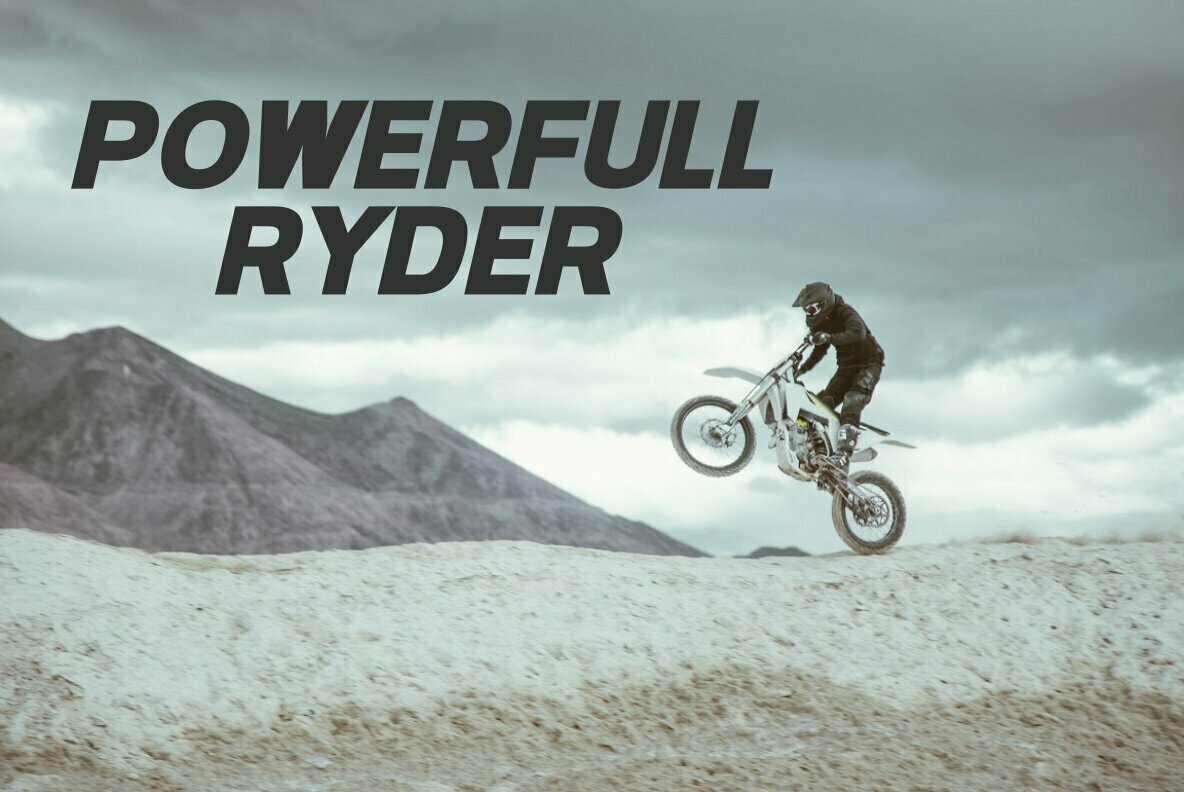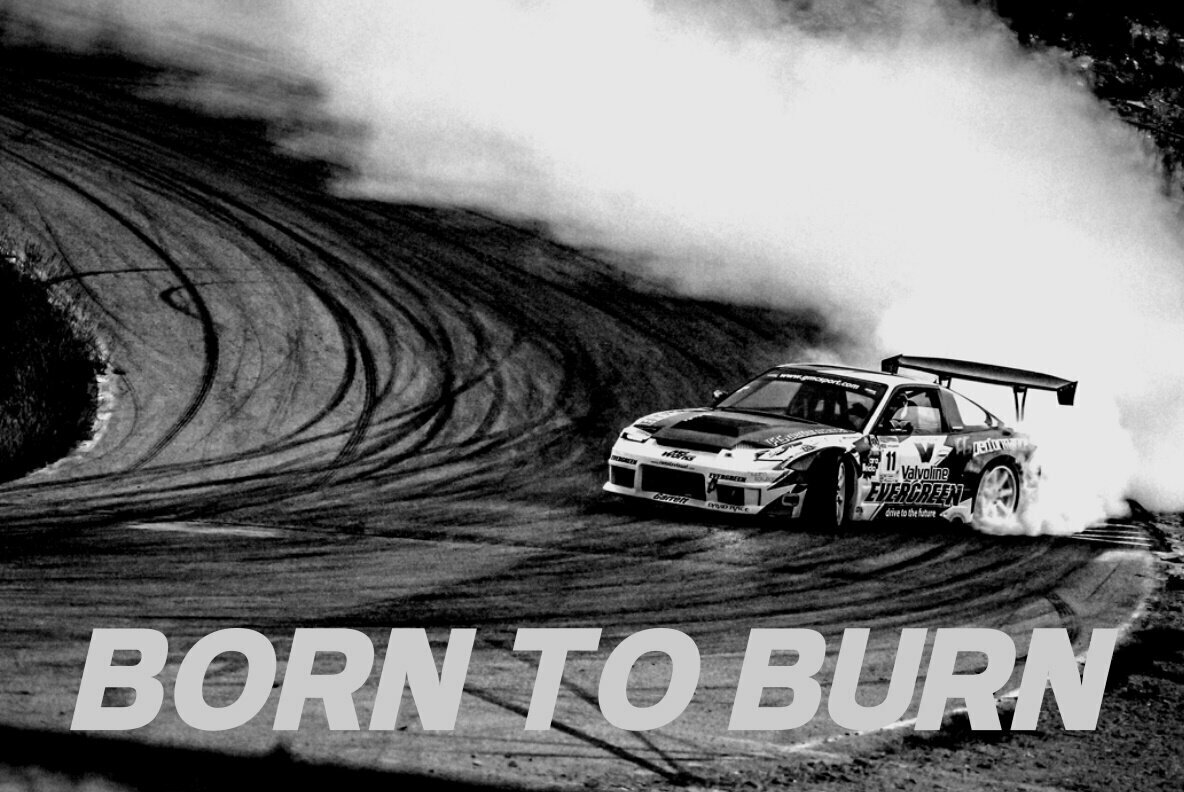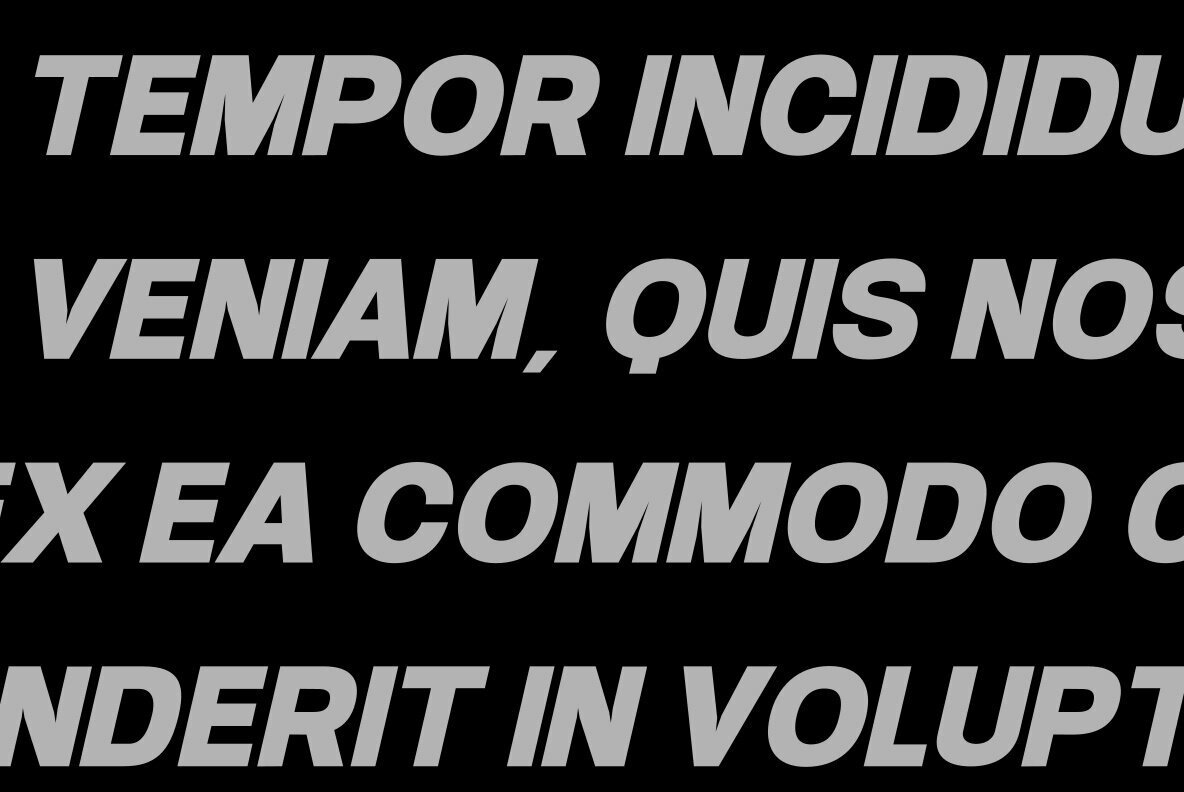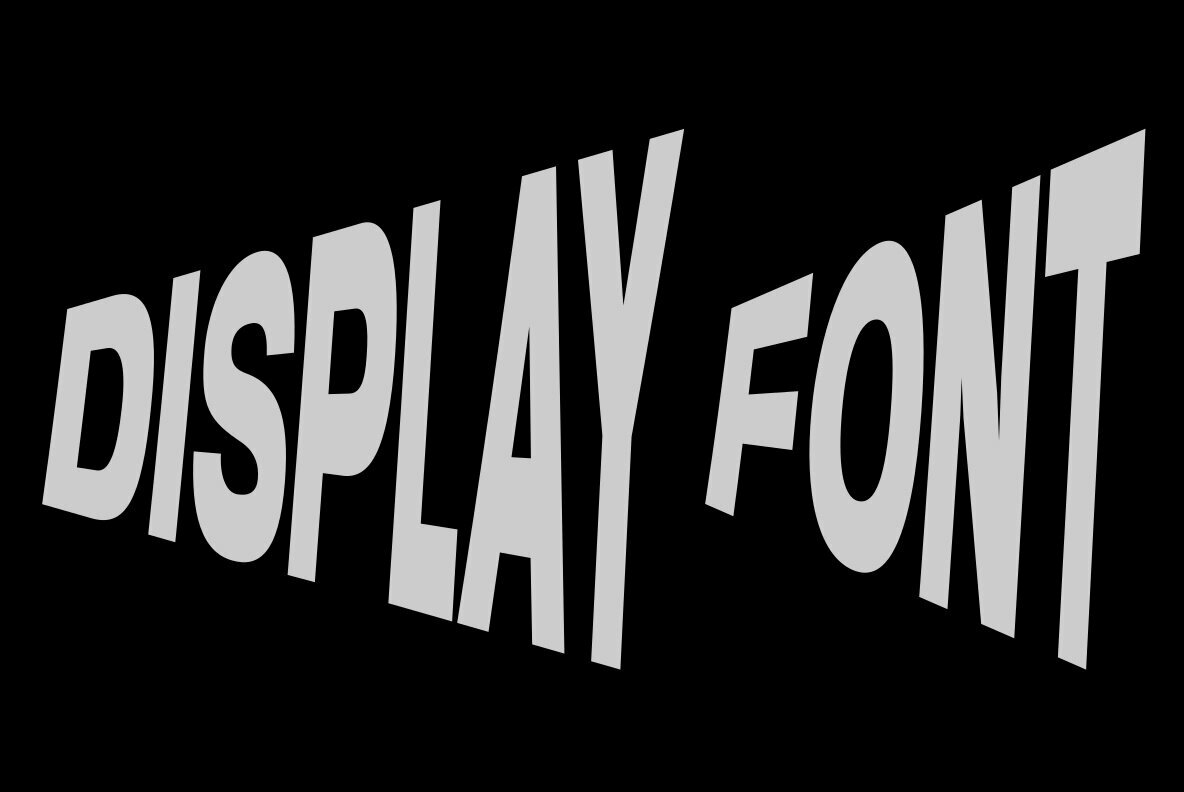
Speedy 1
Inspired by high speed, this font is made in only black in an italic style, giving this font an aura full of energy. Speedy fonts are suitable for use in futuristic themed graphic designs.